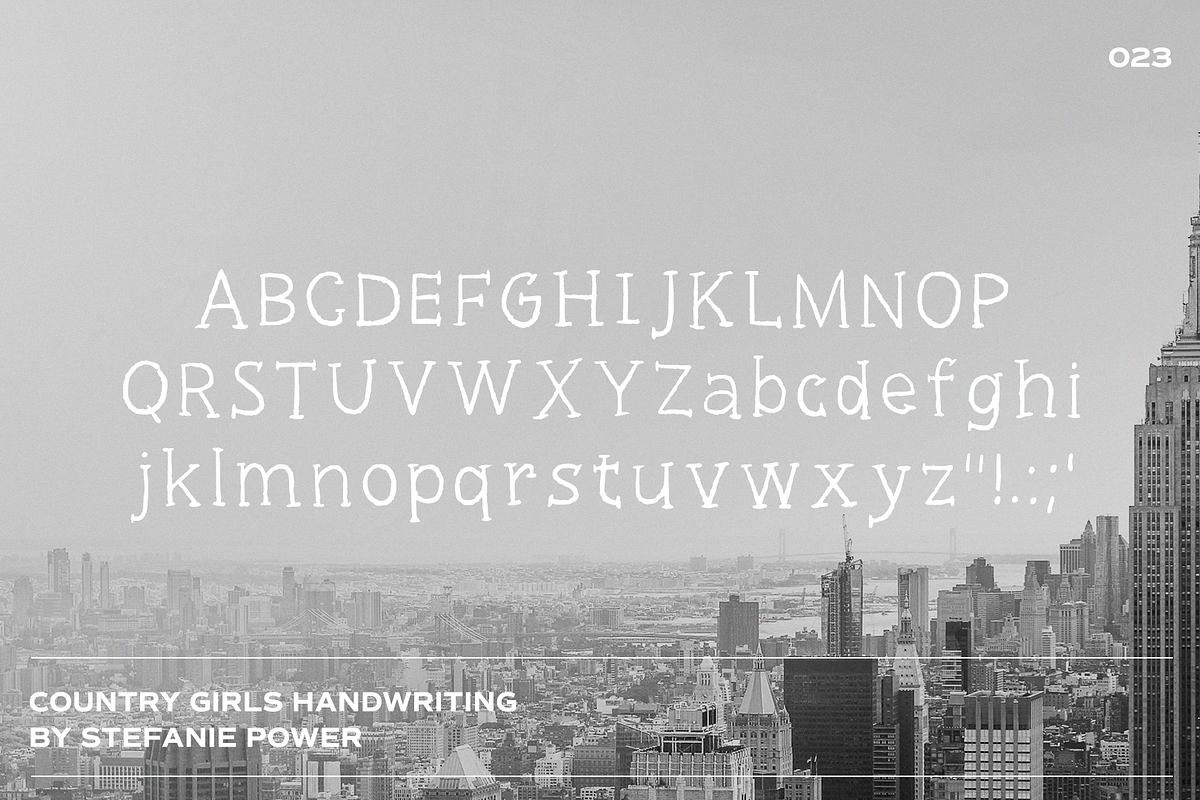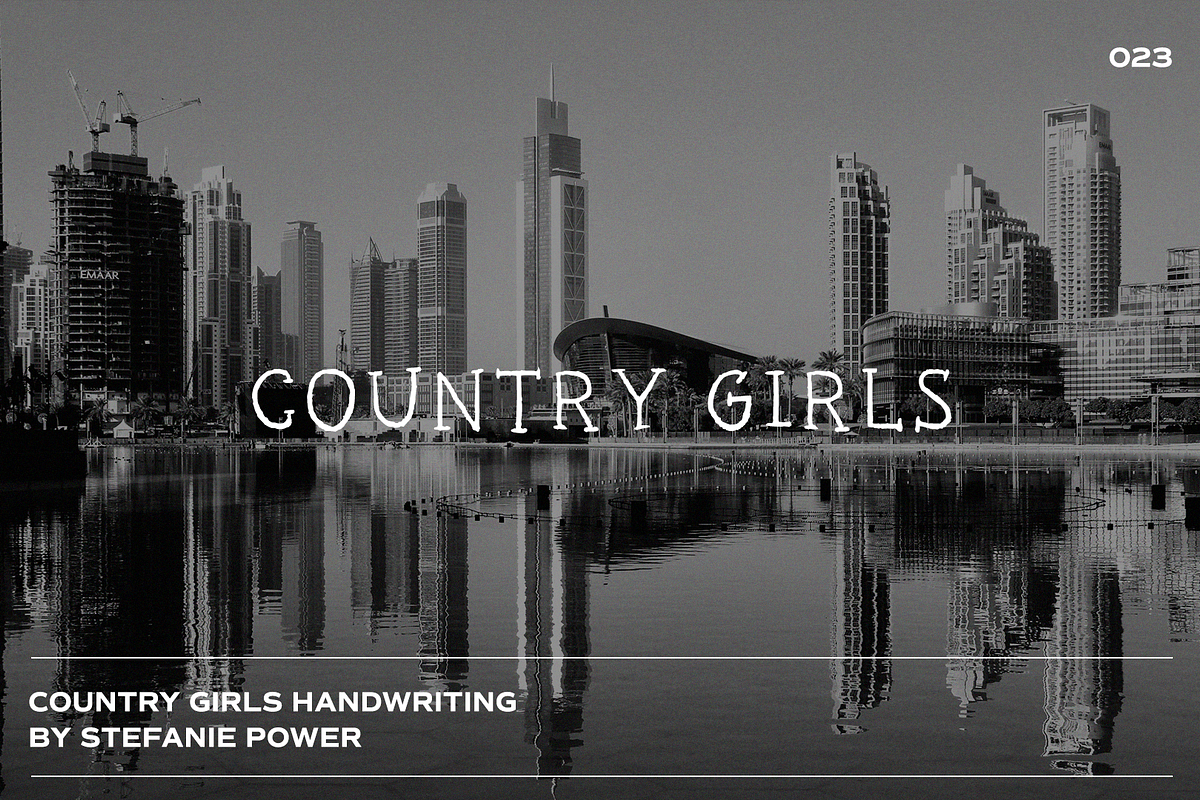
Country Girls Handwriting | Font
Introducing 'Country Girls' - a quirky western-style font.
Country Girls Handwriting • A handwritten script font containing upper & lowercase characters and a range of punctuation and numbers.